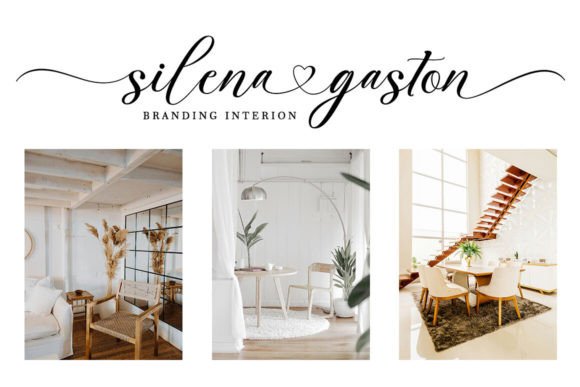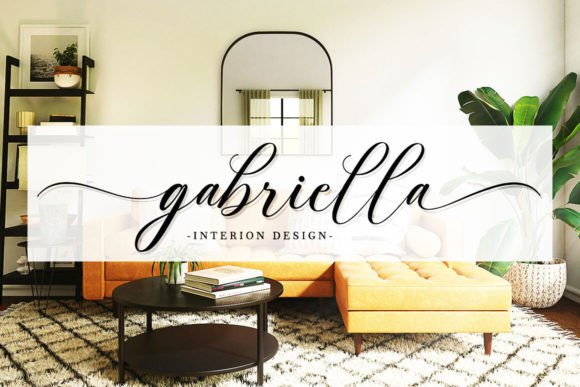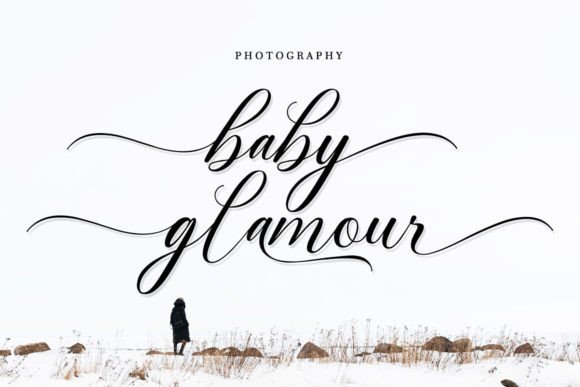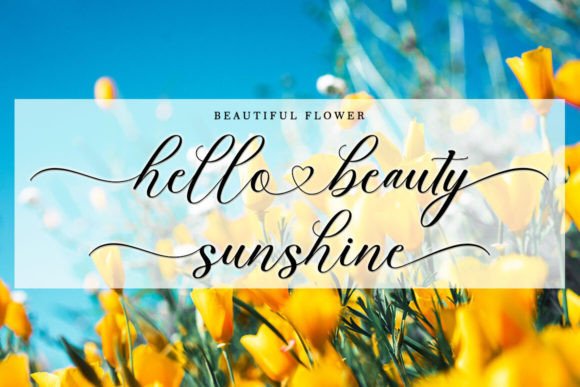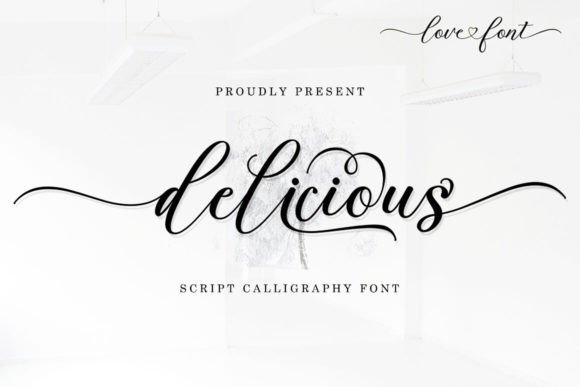
Introducing Delicious Font: The Epitome of Elegance and Sophistication
In the realm of typography, few fonts manage to capture the essence of femininity, simplicity, and sophistication as effortlessly as Delicious Font. This elegantly crafted script font is a masterpiece that embodies an irresistible blend of style and charm, making it an indispensable asset for designers and crafters alike. Whether you’re working on wedding invitations, branding, restaurant menus, or logos, Delicious Font is the perfect choice to add a touch of romance and glamour to your design endeavors.
Aesthetic Appeal and Readability
Delicious Font is more than just a typeface; it’s an aesthetic that brings a sense of luxury and refinement to any design project. Each detail in Delicious resonates with clean and sensual contours, rendering it effortless to the eye and remarkably readable. The font’s distinctive character stems from its lavish letter connections, making it an engaging and versatile asset to your designer’s toolkit. The elegant flow of the script is both captivating and sophisticated, making it perfect for a wide range of applications.
The captivating charm of Delicious Font is not confined to specific events or projects; it contextualizes the allure in various design contexts, including fashion, makeup, stationery, novels, magazines, greeting cards, and packaging. Additionally, it’s an excellent choice for labels and a wide-ranging array of advertisements. The versatility of Delicious Font makes it an invaluable resource for designers seeking to create visually stunning and cohesive brand identities.
Comprehensive Set of Characters
Delicious Font offers a comprehensive set of characters, including uppercase, lowercase, and a range of punctuation marks. This extensive character set ensures that designers have the flexibility to create intricate and detailed designs without compromising on style or readability. The inclusion of various typographic elements allows for the creation of complex and visually appealing text arrangements, making Delicious Font suitable for both digital and print applications.
Applications of Delicious Font
The applications of Delicious Font are vast and varied. Here are a few examples:
- Wedding Invitations: Add a touch of romance and elegance to your wedding invitations with Delicious Font.
- Branding: Create a sophisticated and luxurious brand identity with Delicious Font.
- Restaurant Menus: Elevate your restaurant’s menu design with the elegant and readable Delicious Font.
- Logos: Create a memorable and stylish logo with Delicious Font.
- Fashion and Makeup: Use Delicious Font to add a touch of glamour and sophistication to your fashion or makeup brand.
Why Choose Delicious Font?
There are several reasons why designers and crafters should consider Delicious Font for their projects:
- Elegance and Sophistication: Delicious Font embodies an irresistible blend of femininity, simplicity, and sophistication.
- Readability: The font’s clean and sensual contours make it effortless to read.
- Versatility: Delicious Font is suitable for a wide range of design applications.
- Comprehensive Character Set: The font includes a comprehensive set of characters, ensuring flexibility and creativity.
Delicious Font is a masterpiece of typography that offers an irresistible blend of elegance, sophistication, and charm. Its versatility, readability, and comprehensive character set make it an indispensable asset for designers and crafters seeking to create visually stunning and cohesive designs. Whether you’re working on wedding invitations, branding, or any other design project, Delicious Font is the perfect choice to add a touch of romance and glamour.